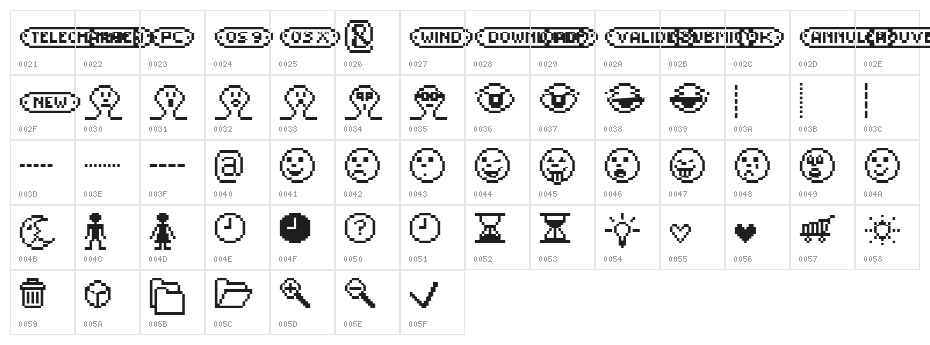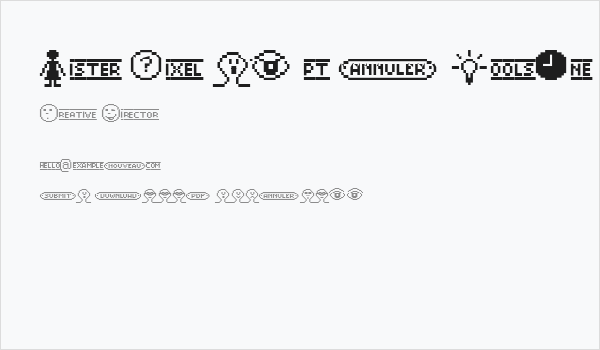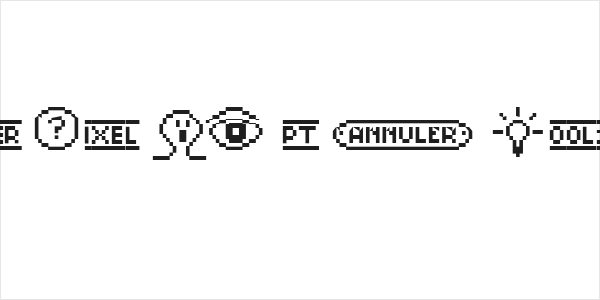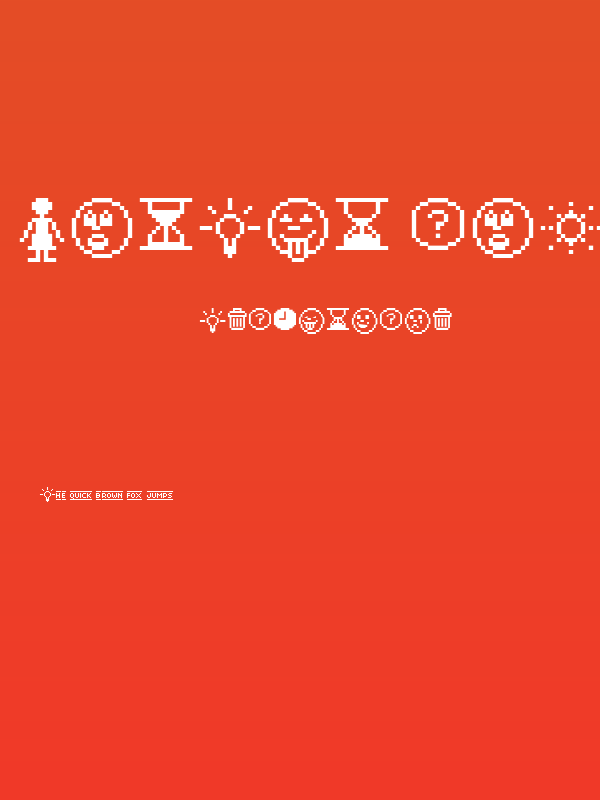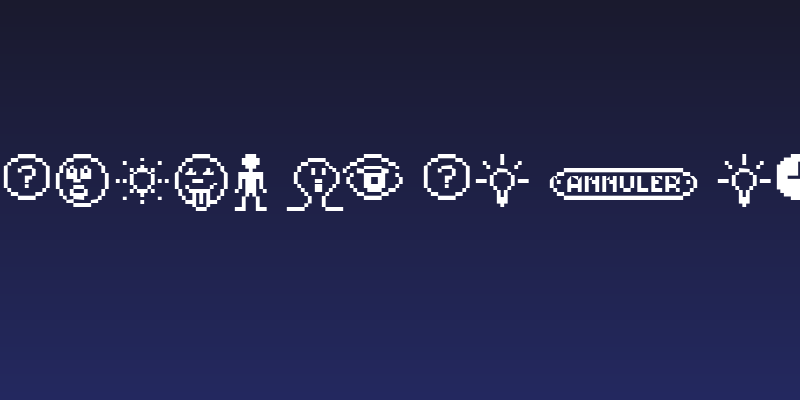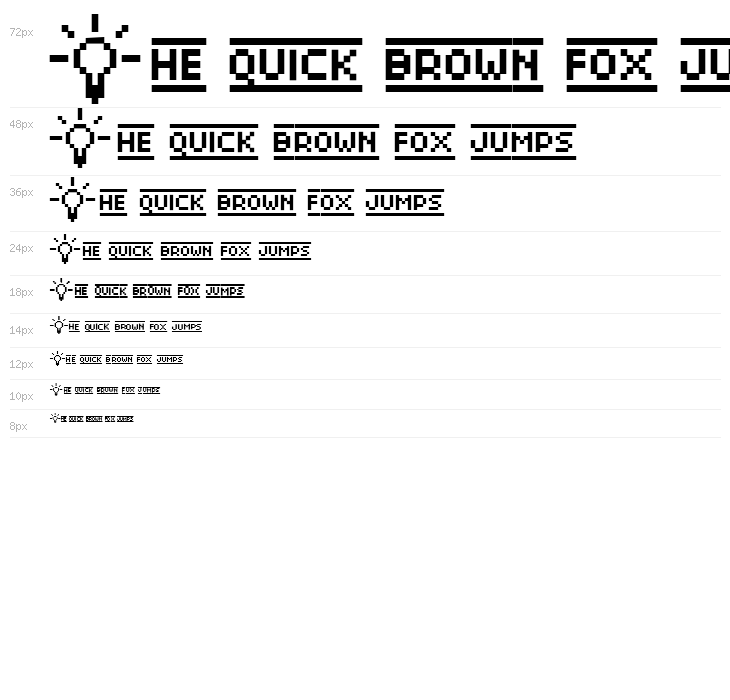
Mister Pixel 16 pt - ToolsOne Font
Mister Pixel 16 pt - ToolsOne Description
This font features a pixelated, retro style reminiscent of early digital displays and video games. Each character is constructed with a blocky, grid-like appearance, giving it a distinct, nostalgic feel. The uppercase letters are bold and uniform, maintaining a consistent height and width. The font's design is simple yet effective, capturing the essence of classic arcade aesthetics. Its geometric structure makes it highly legible, even at smaller sizes, while the uniformity of the characters ensures a cohesive look across any text. The font's playful and vintage vibe makes it ideal for projects that aim to evoke a sense of nostalgia or cater to a tech-savvy audience.
| Proposed Projects | Ideal for retro video game designs, tech-themed posters, digital art projects, and nostalgic branding. |